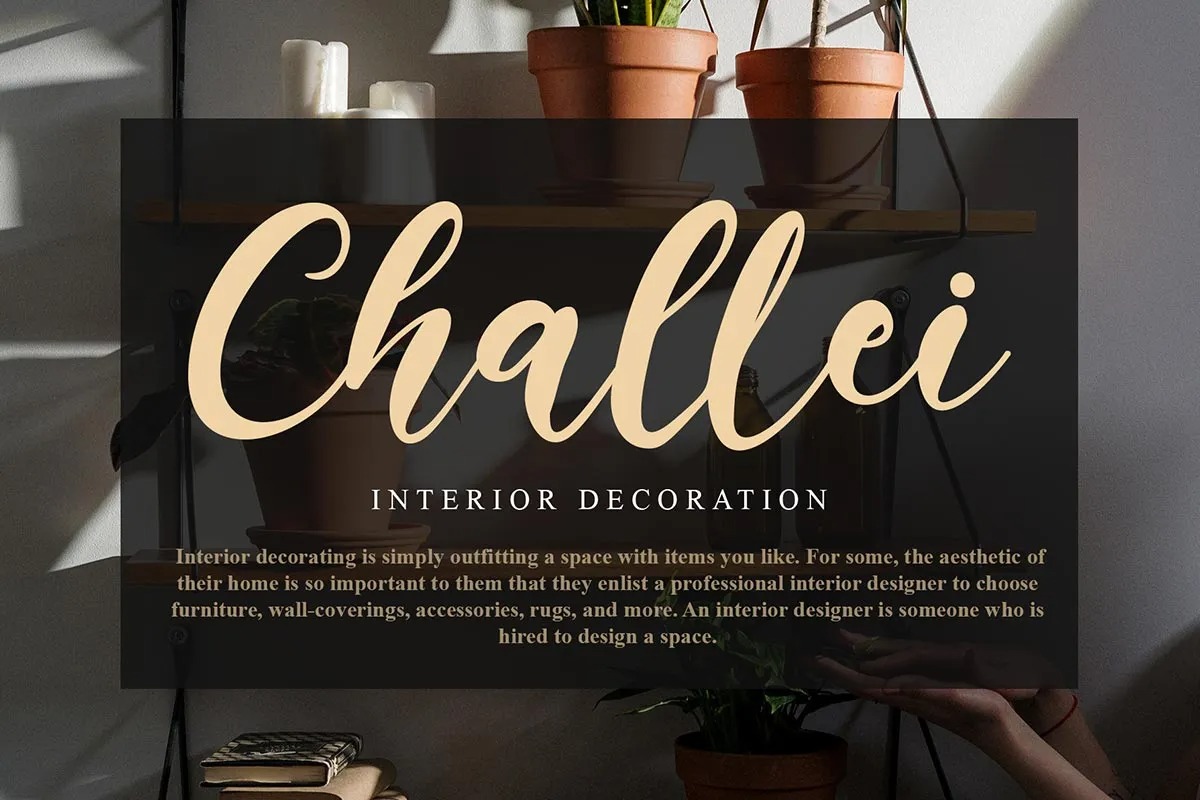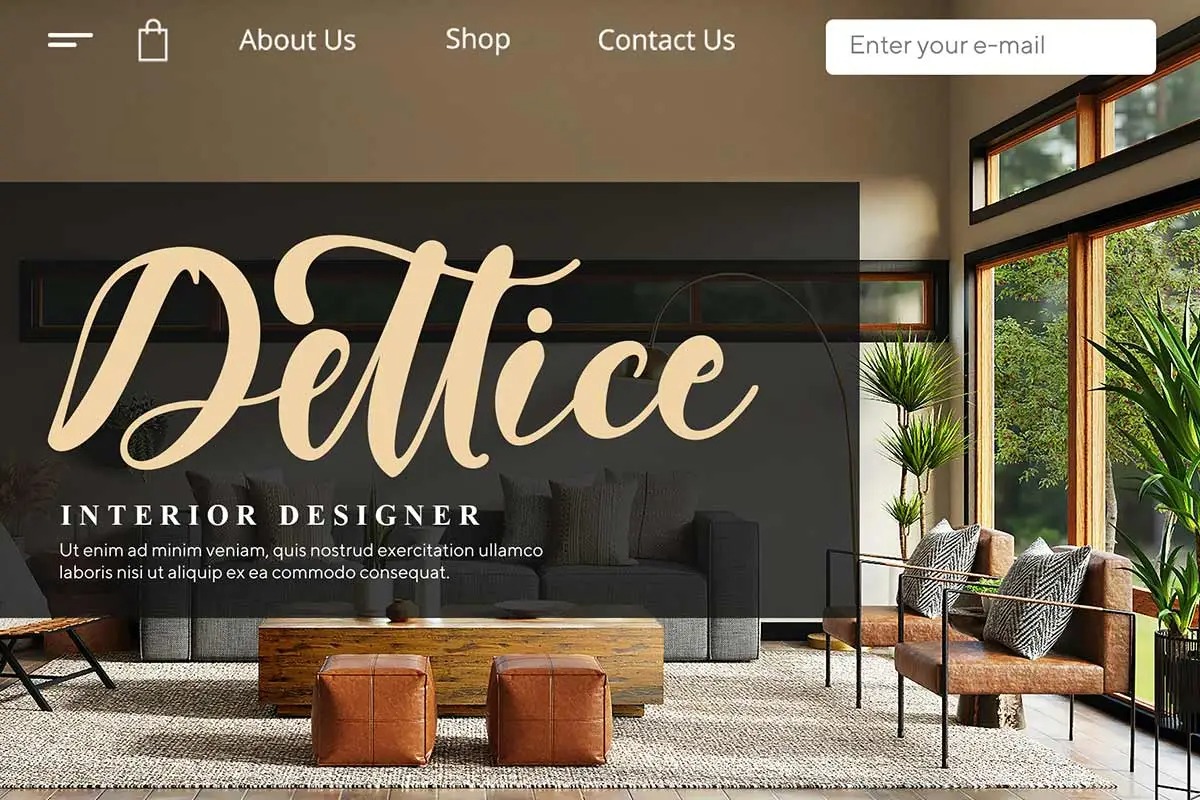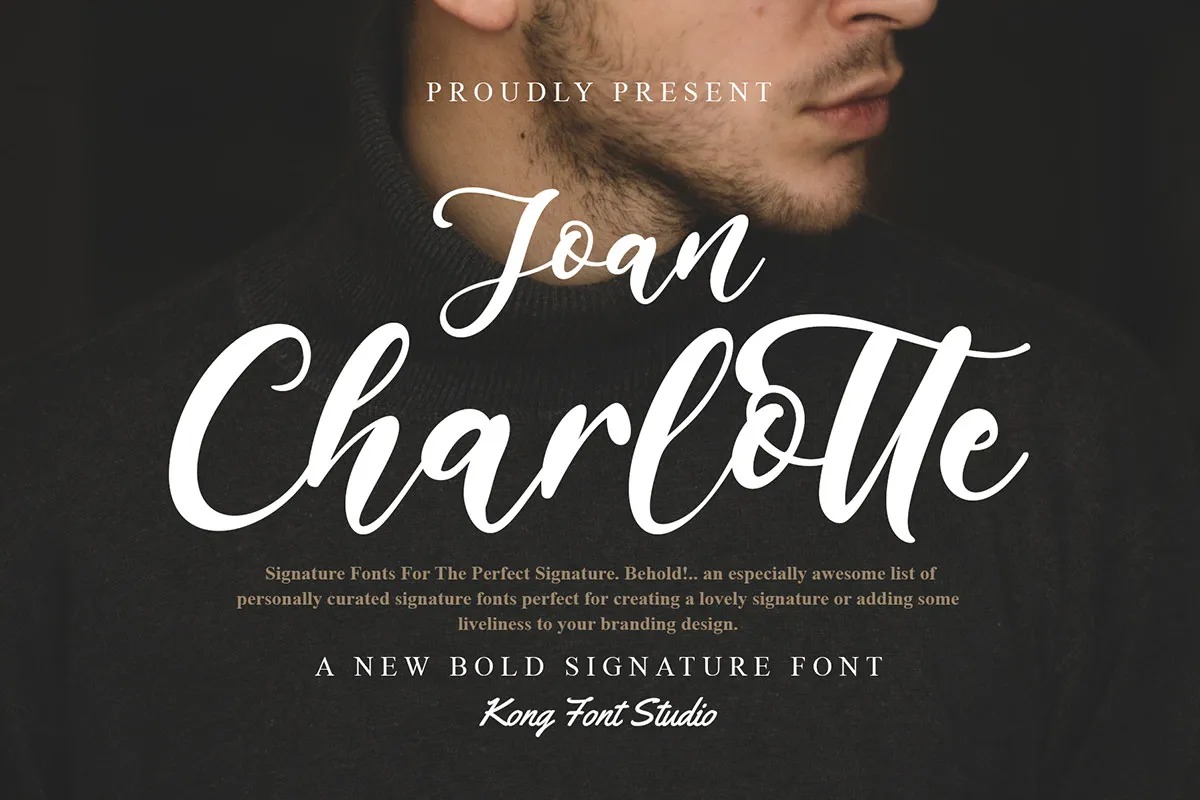
Joan Charlotte Font
Joan Charlotte Script Font
It’s an attractive script typeface with an elegant style that gives it the best look. It is elegant, feminine and noble, while maintaining a friendly atmosphere. Joan Charlotte is versatile and is perfect for fashion, branding, trending blogs, bridal boutiques or any business that wants to look luxurious, chic and elegant.